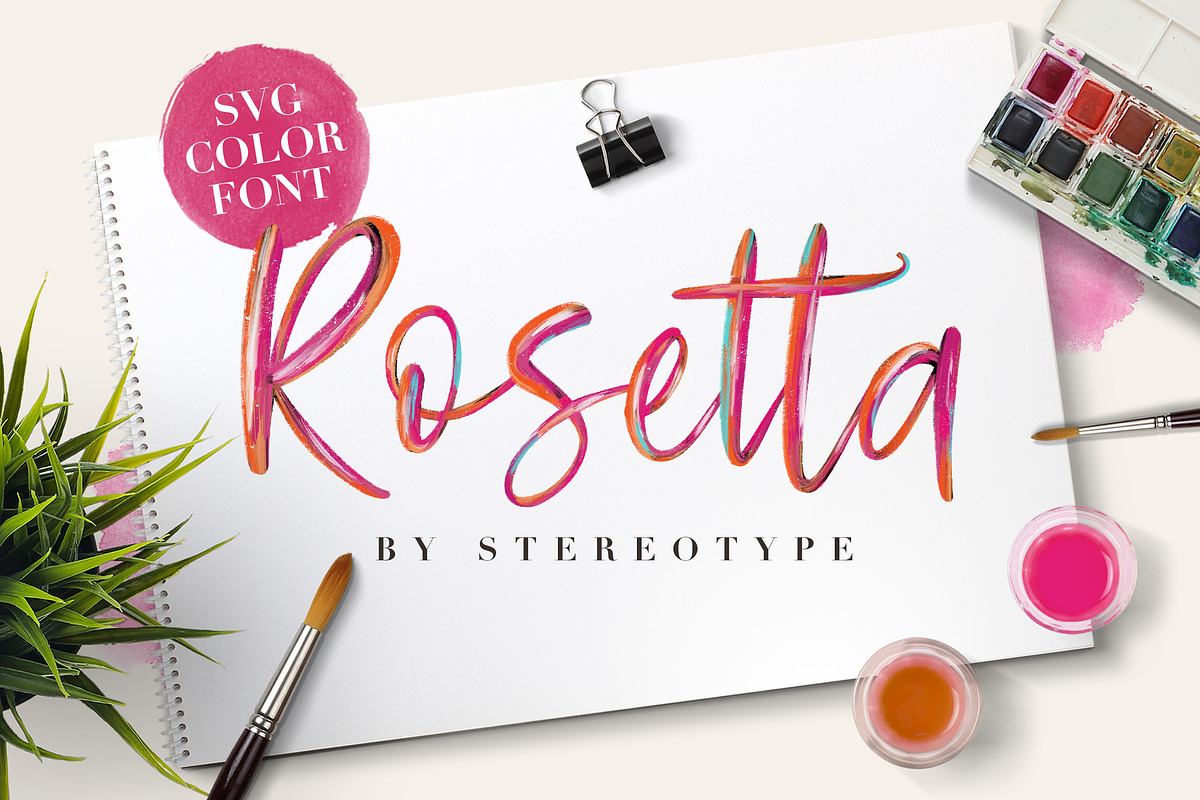
Rosetta SVG Color Font Free Download is a vibrant, eye-catching typeface designed to add color and personality to your designs. With its built-in color support, this font allows you to create stunning, multi-colored text without the need for additional graphic design tools. Perfect for logos, banners, posters, social media graphics, and product packaging, Rosetta brings your text to life with rich, bold colors.
This font combines modern design elements with a playful, artistic feel, making it ideal for brands, creative projects, and anything that needs a pop of color and creativity.